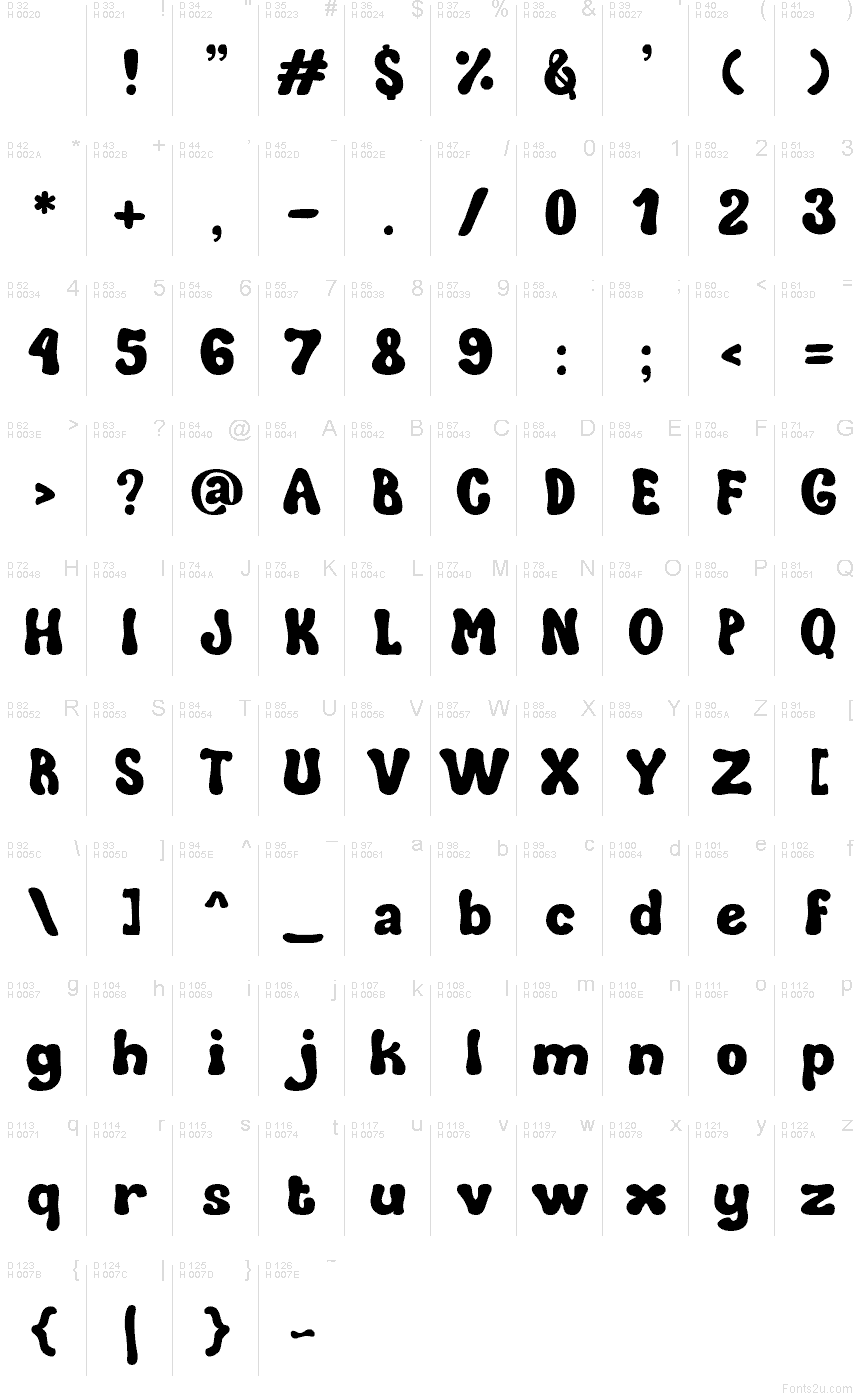
Aksara Astral is a free cartoon display font with plump, rounded letters and a loose hand-drawn bounce. The shapes feel soft and slightly squishy, with teardrop openings and swollen curves that give the font a playful, storybook mood rather than a clean geometric one.
It fits naturally in children's book covers, snack packaging, playful branding, poster headlines, and party invitations, where a free font with this much puffed-up rhythm can do a lot of the talking. Use it for short titles, logo sketches, label names, or big callouts when you want the letters to feel cheerful, friendly, and a little goofy.